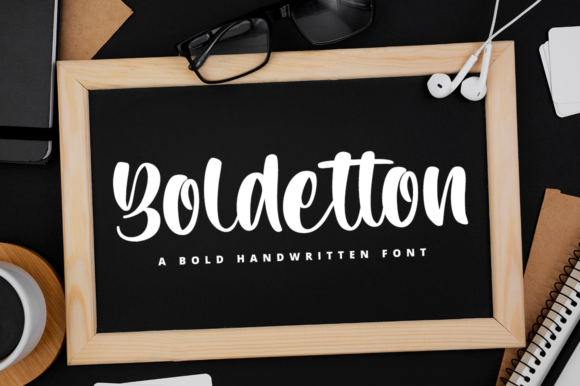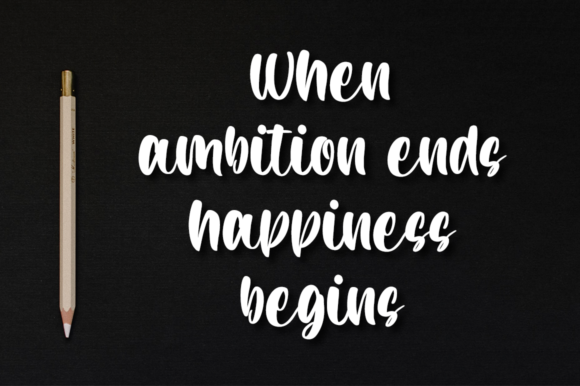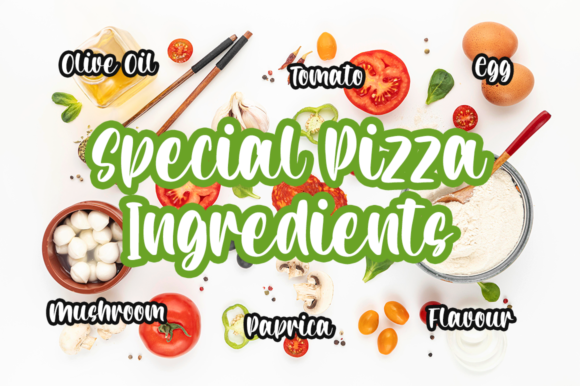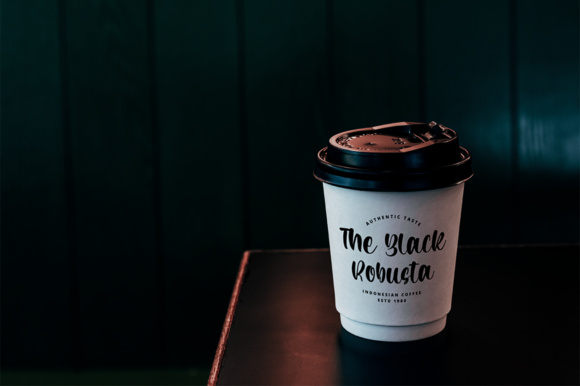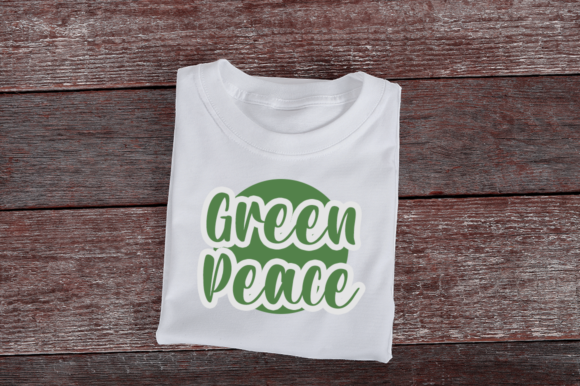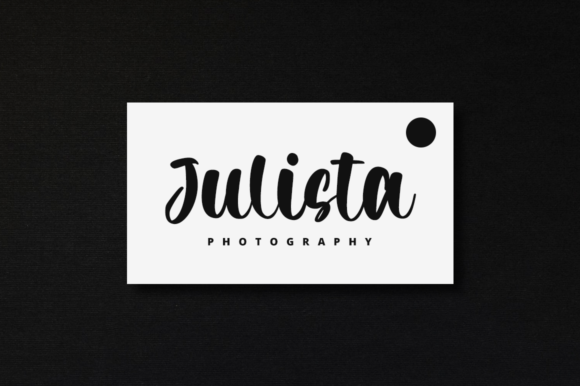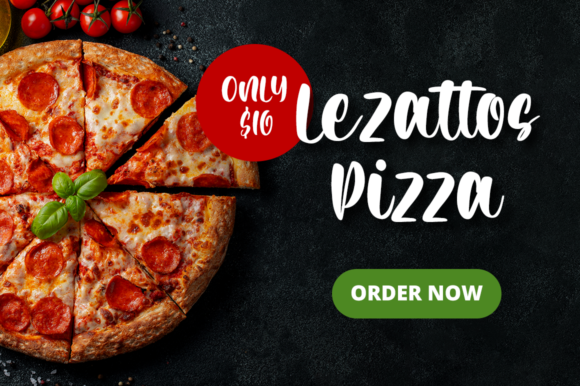
Unlock the Magic of Bold Text with the Boldetton Font
Have you ever been brainstorming ideas for a creative project, and suddenly a spark of inspiration strikes? The words flow effortlessly, and your imagination runs wild. It’s in these moments that we need the right tools to bring our visions to life. That’s where the Boldetton Font comes in – a delightful script font that adds a touch of whimsy to your most ambitious ideas.
This charming font features playful characters that seem to dance along the baseline, making your designs stand out in a crowded market. Whether you’re a graphic designer, writer, or artist, the Boldetton Font is a valuable addition to your toolkit. Its unique charm and personality will elevate your work, making it more engaging and memorable.
- Unique Characteristics: Boldetton Font features a unique blend of modern and vintage elements, with bold lines and geometric shapes that give it a distinctive look
Review of Boldetton Font
Overall, I have mixed feelings about the Boldetton Font. ✨ There are some aspects where it shines, but it also has some limitations that might make it not ideal for all projects.
- ✨ The font is highly legible, even at smaller font sizes.
- ✨ It has a unique, bold aesthetic that can add character to your designs.
- ✨ The font is available in a wide range of weights and styles, making it versatile for various design applications.
- ⚠️ The font can be overwhelming in large blocks of text, making it better suited for headlines or emphasis.
- ⚠️ Some users may find the font’s boldness too aggressive, potentially causing visual fatigue.
- ⚠️ The font’s availability in certain languages or characters may be limited, which could be a concern for global design projects.
In conclusion, Boldetton Font is a great choice when you need a bold, eye-catching font for headings or emphasis. However, it may not be the best fit for body text or projects where subtlety is key.
For best results, use Boldetton Font for headings, titles, and emphasis. It works well for logos, posters, and business cards.